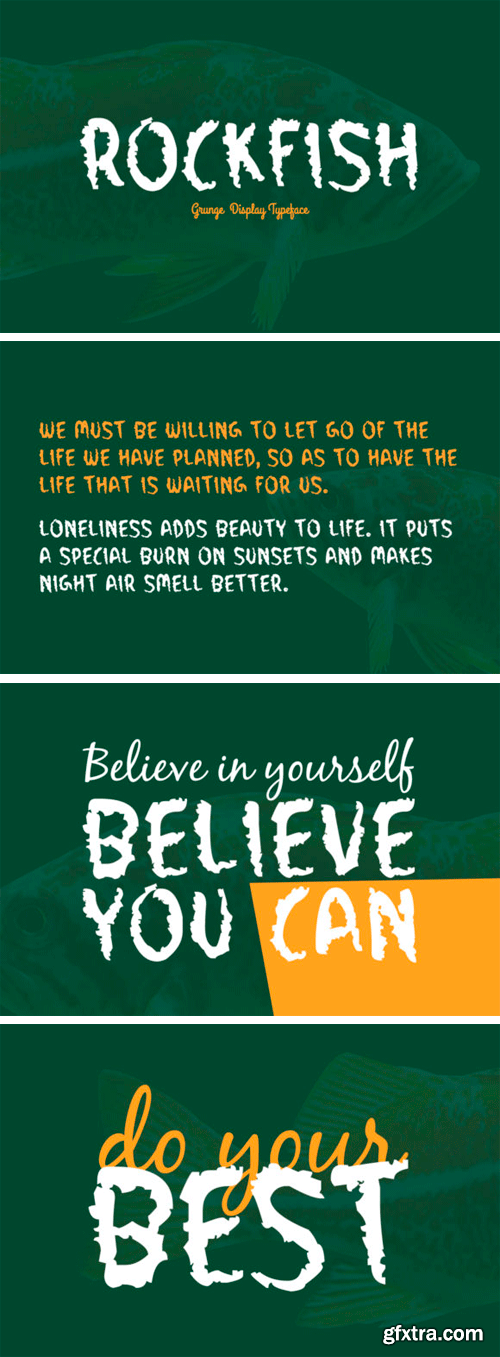
洛克鱼字体
Rockfish Font
The Rockfish is a brand new display font. It’s perfectly suited for stationery, logos, t-shirt, paper, print design, website headers, photo frames, flyers, music covers, posters, image sliders, and much more.